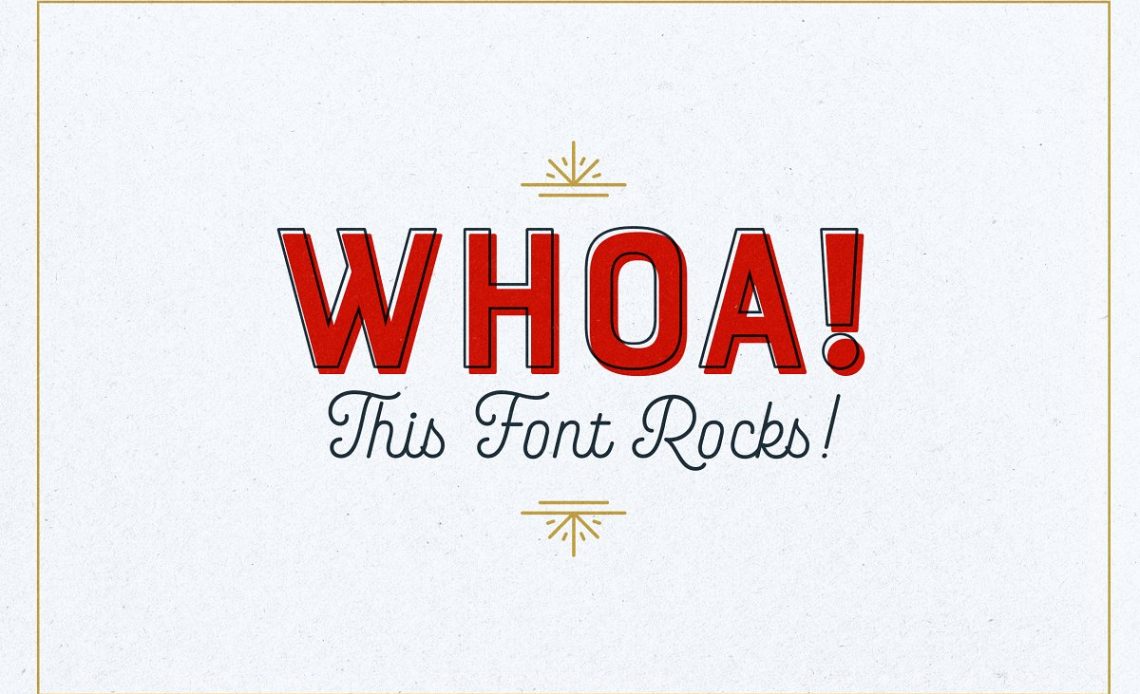
Looking for the best font for your vintage t-shirts? Look no further than Bourton, the sans-serif typeface created by Kimmy Design. As the cousin to Buford, Bourton offers even more layering options, stylistic alternatives, graphic extras, and its own script font.
With Bourton, you'll get everything you need to create the perfect vintage look for your t-shirt designs. The package includes six base layer fonts, six top layer fonts, six extrude fonts, five drop shadow fonts, two line fonts for secondary text, and two script fonts (light and bold). And if that wasn't enough, Bourton also comes with a set of over 30 free bonus logo templates, featuring flourishes, banners, frames, and more.
But Bourton is more than just a font - it's a creative tool that allows you to experiment and explore new possibilities. Whether you're looking to create a vintage t-shirt design or a stunning logo, Bourton has everything you need to make it happen.
And with its Latin and Latin Extended language support, Bourton is accessible to a global audience. So why wait? Start exploring the possibilities of Bourton today and bring your creative vision to life!